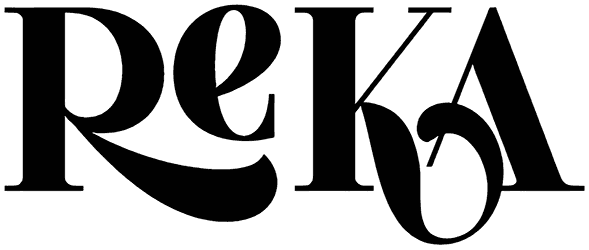
Reka Font
You can impress countless followers with any taste if you set a humble and chic letterform on your words. The Reka font can do it and make your design professional and timeless. This serif font is a great selection for varied projects such as media company branding. Give it a chance and be unique.